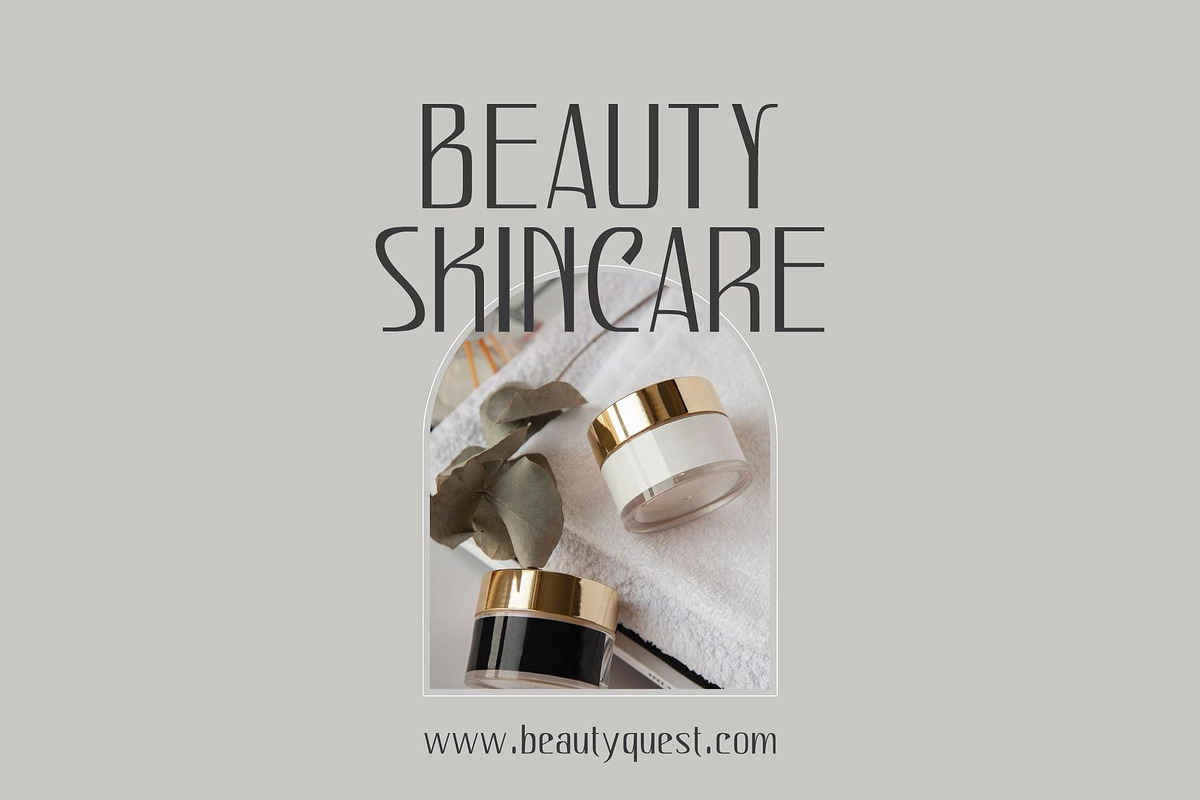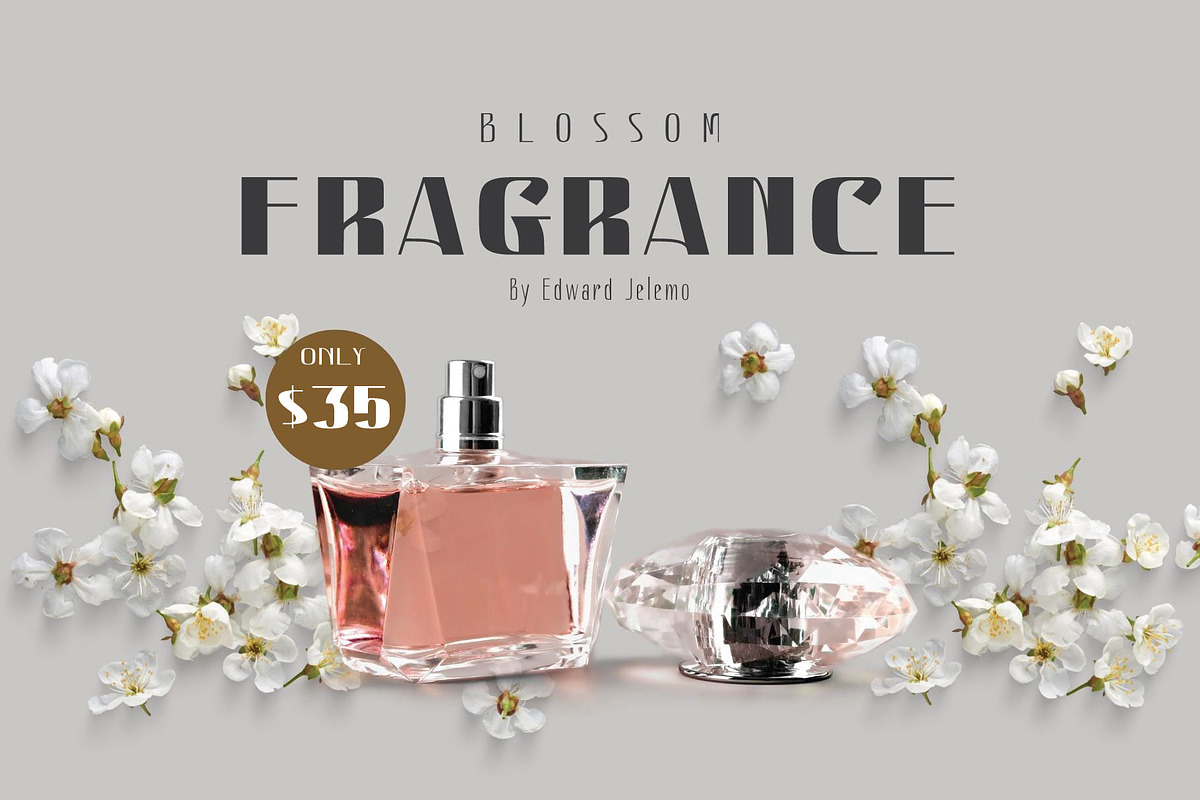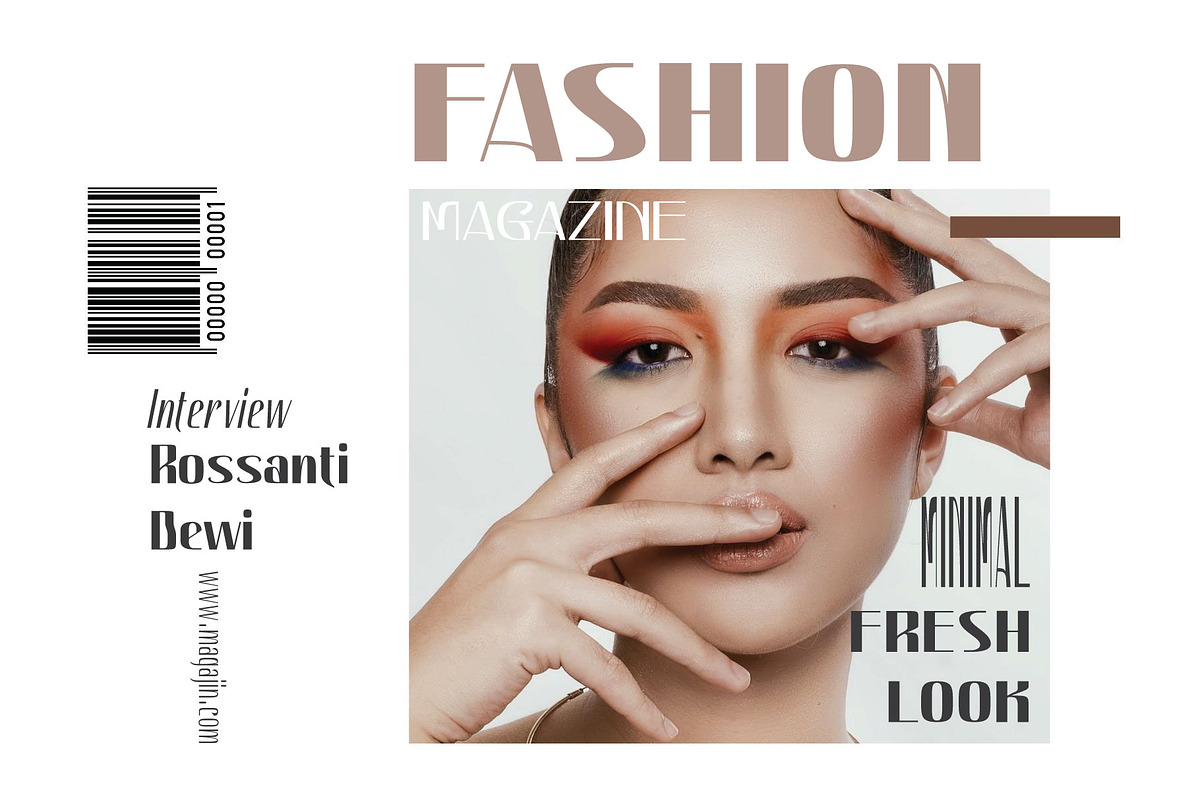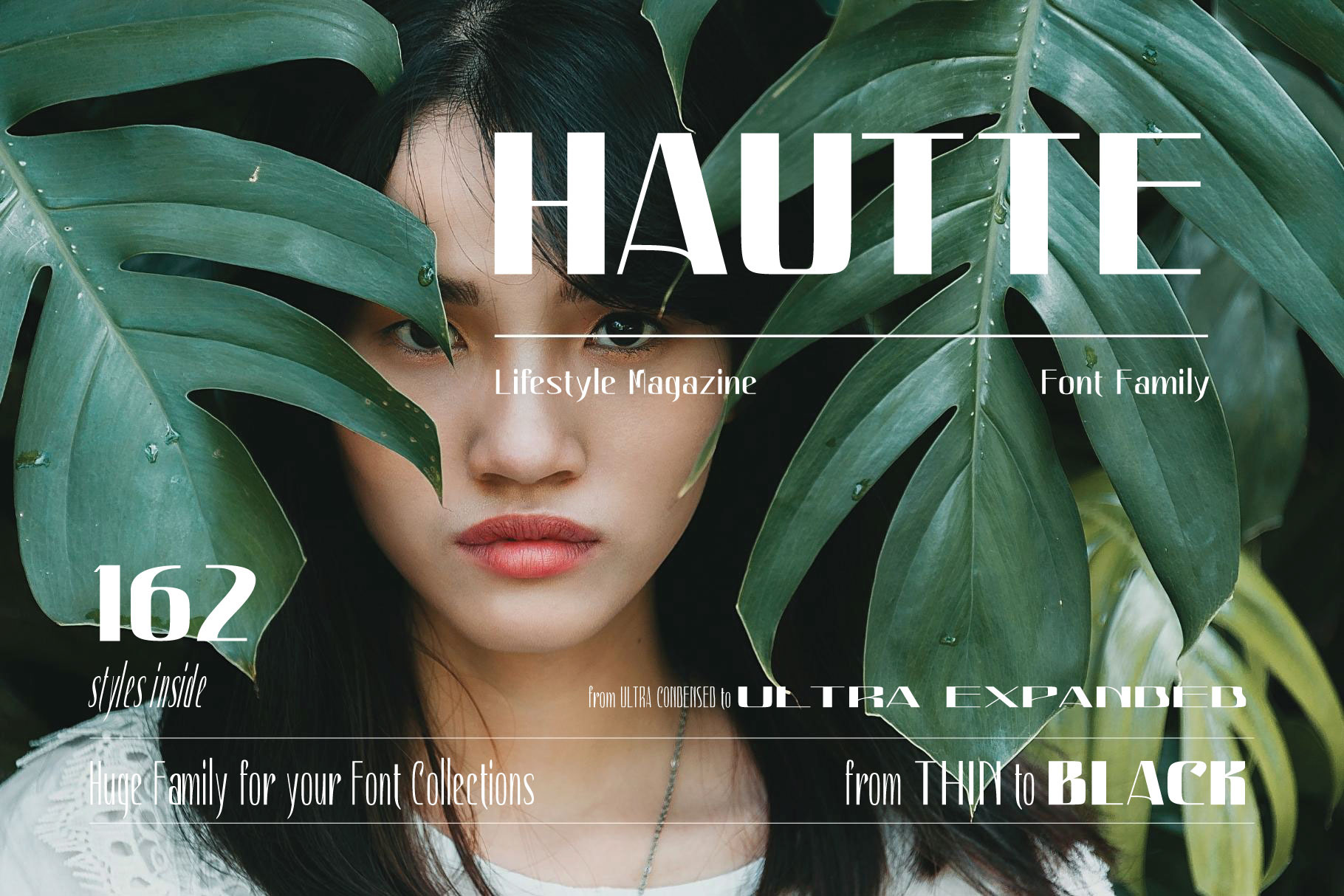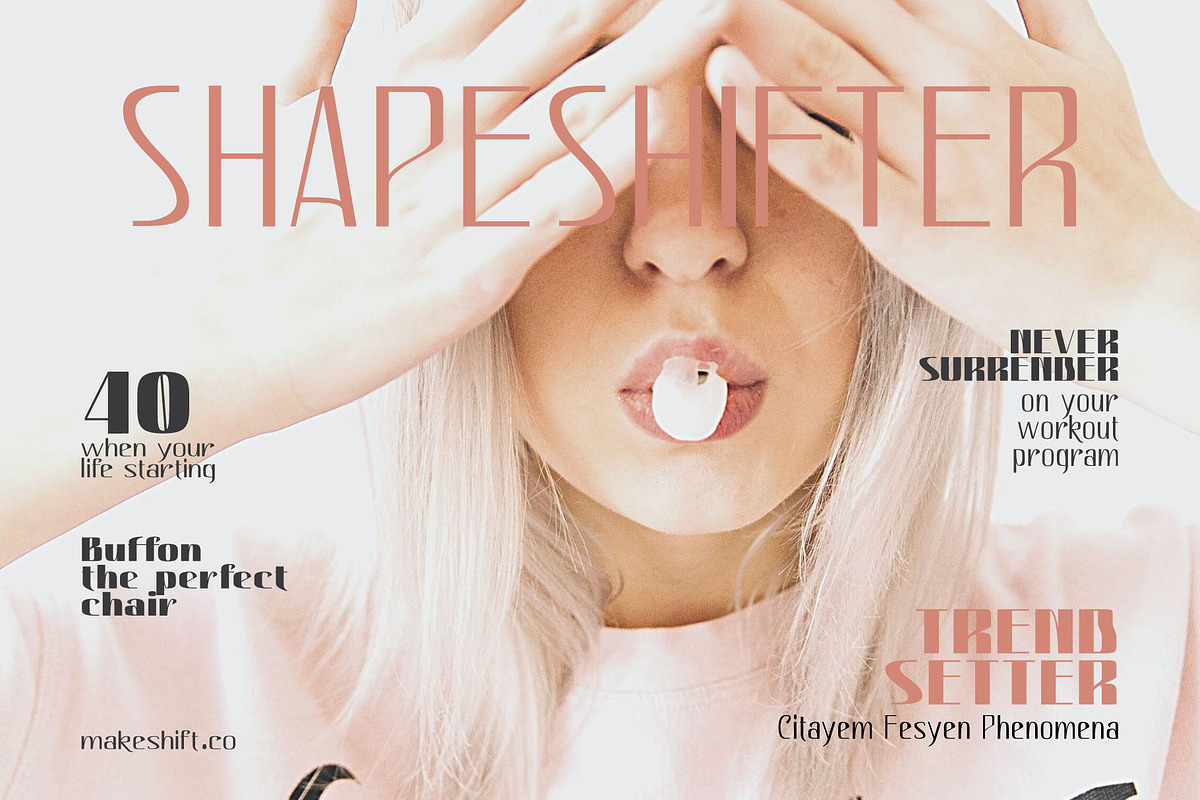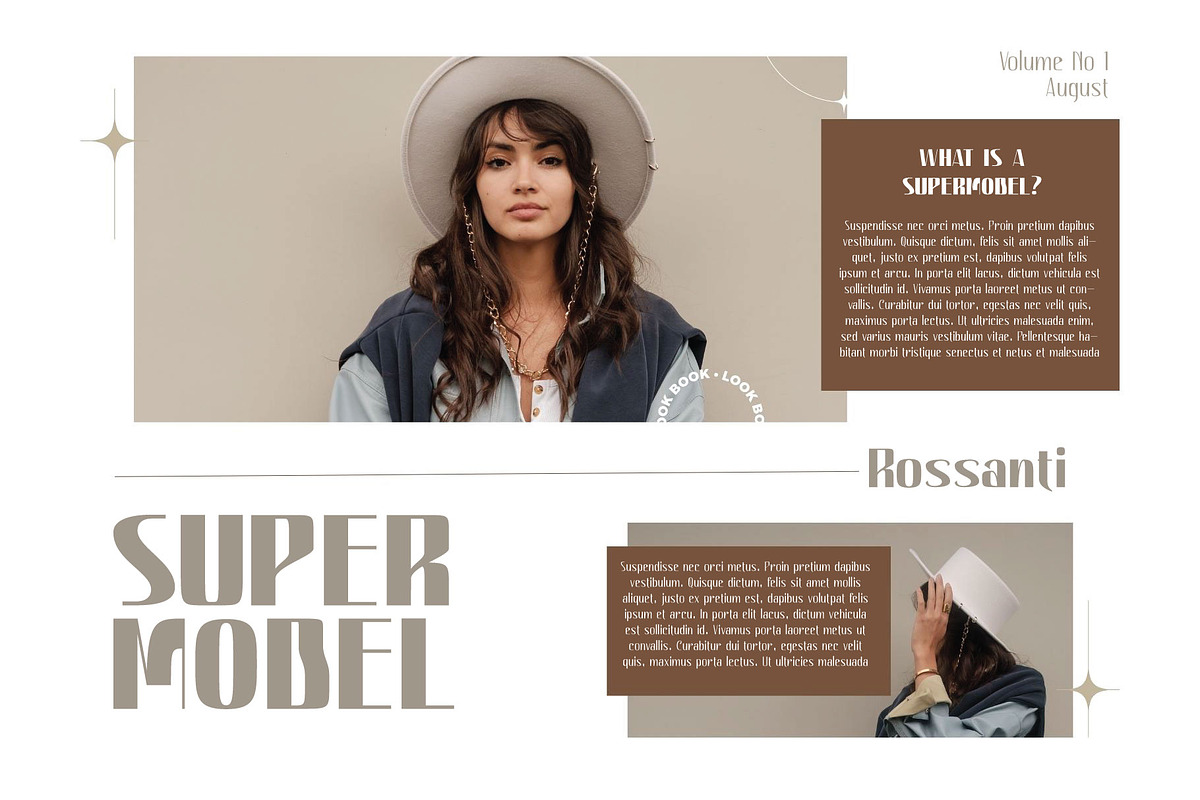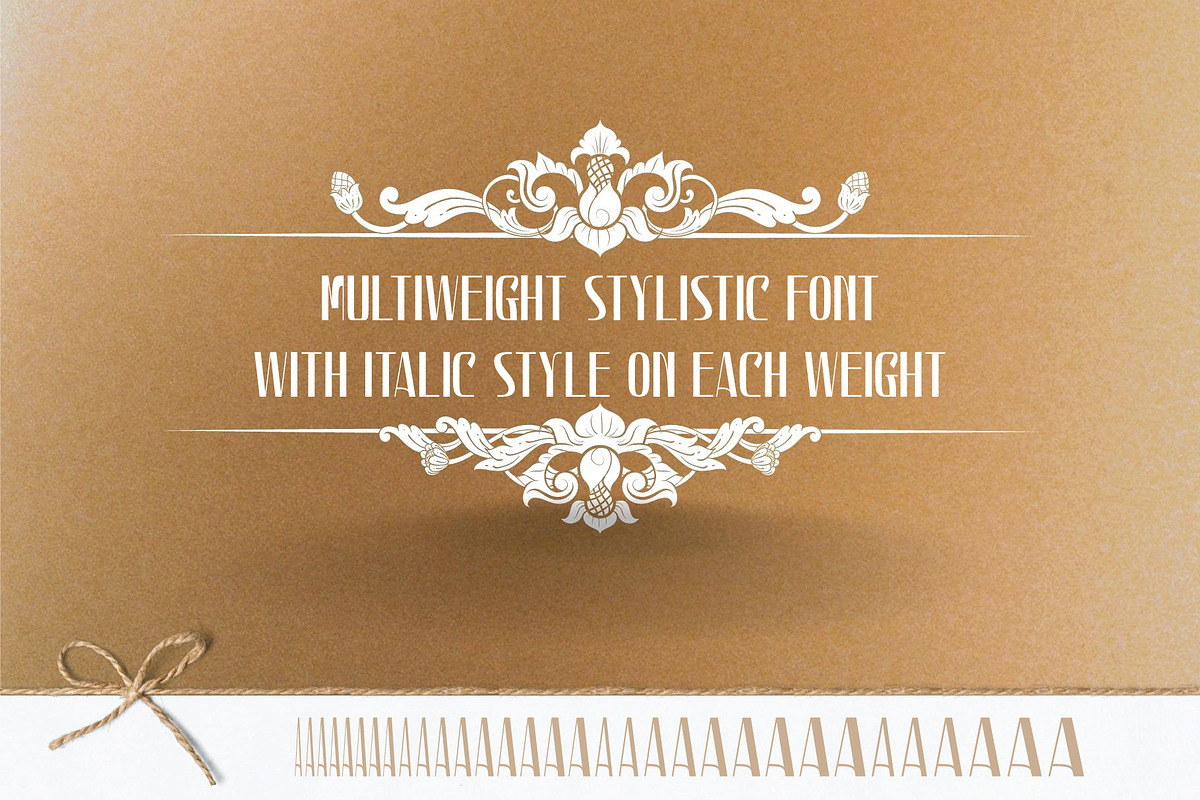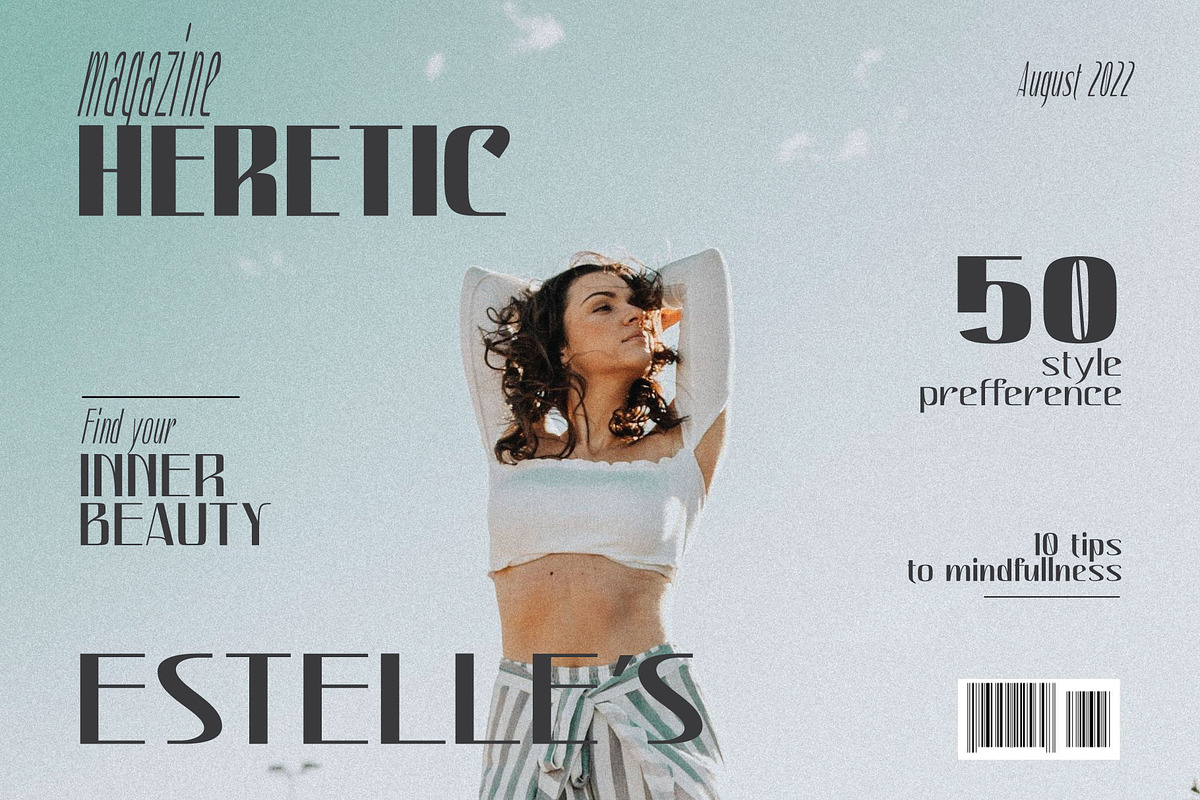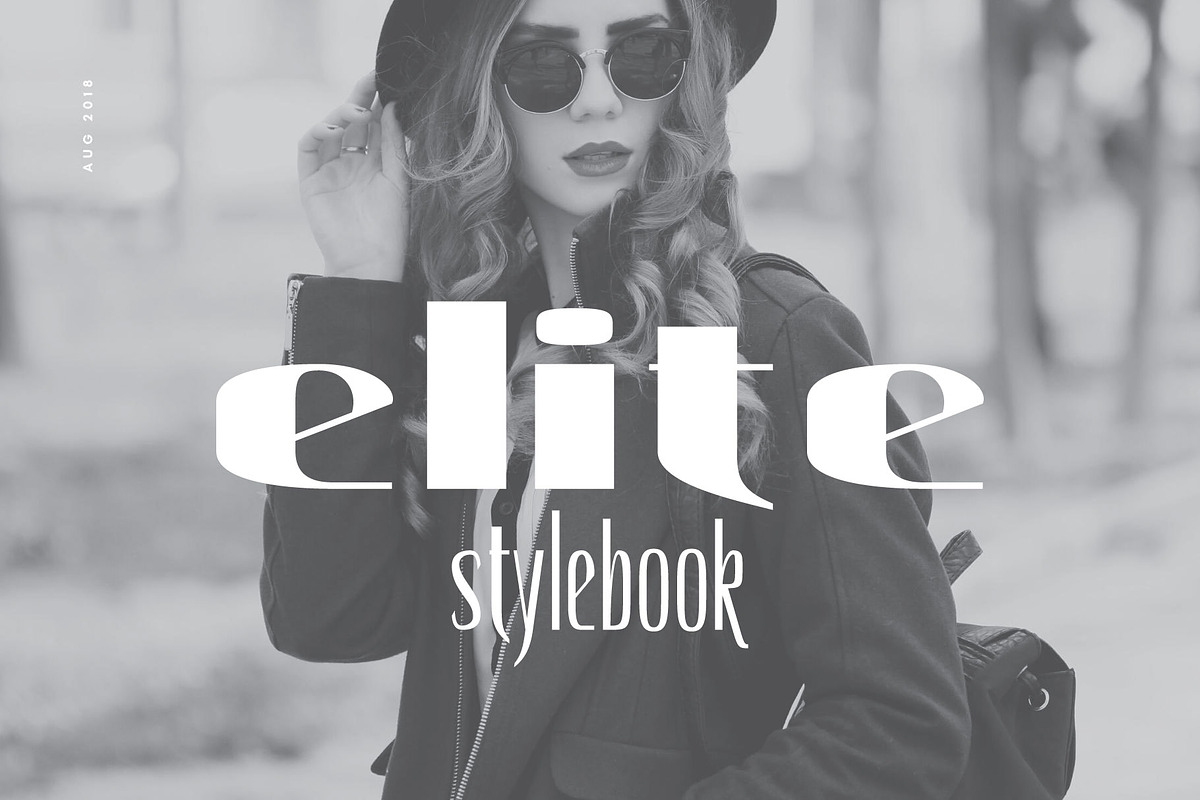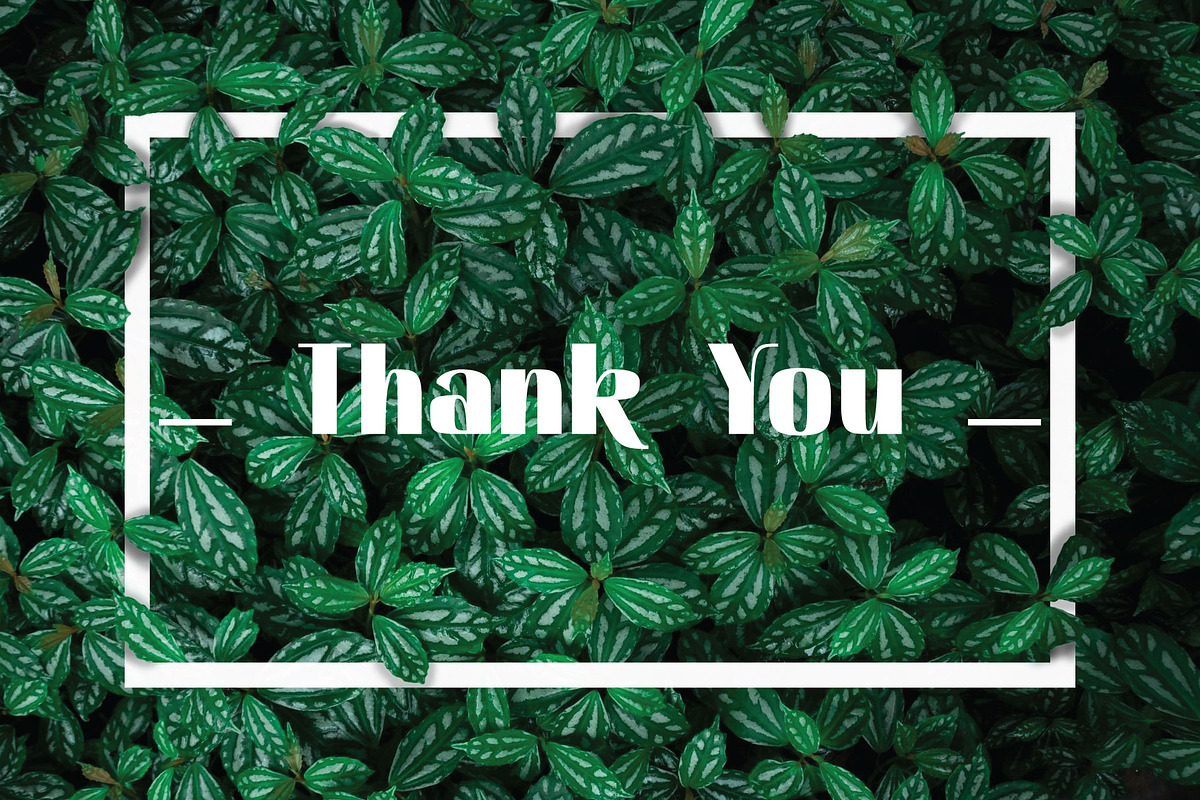
Hautte - Fashion Magazine Font
Introducing Hautte: A multi-faceted Sans Serif Display typeface with 162 different styles: An elegant minimal sans serif.
The hybrid personality of Hautte
There's beauty in the plain version of Hautte, even without all the extras, for a clean and elegant minimal sans serif. Any version of Hautte brings a touch of luxury and bespoke custom typography to modern logos, websites, social media quotes, wedding branding, and more.